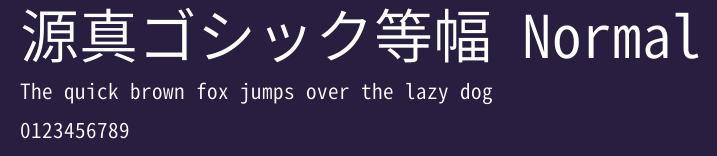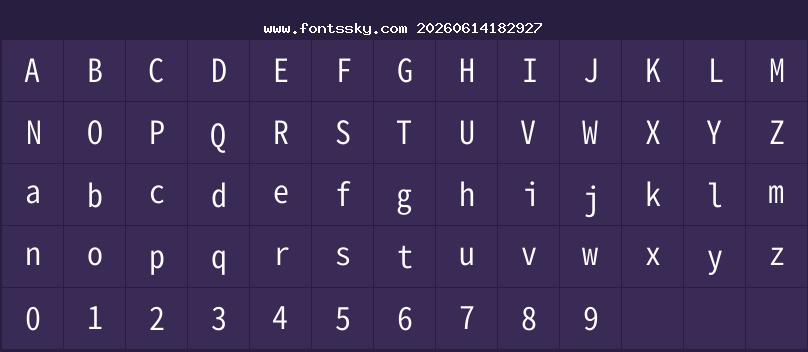
• Designer: [Source Han Sans] Ryoko NISHIZUKA 西塚涼子 (kana & ideographs); Paul D. Hunt (Latin, Greek & Cyrillic); Wenlong ZHANG 张文龙 (bopomofo); Sandoll Communication 산돌커뮤니케이션, Soo-young JANG 장수영 & Joo-yeon KANG 강주연 (hangul elements, letters & syllables) [M+ OUTLINE FONTS] Coji Morishita 森下浩司 (coz)
About 源真ゴシック等幅 Normal.ttf
源真ゴシック等幅 Normal.ttf is a modern, elegant sans-serif font designed for ultimate readability and visual harmony. Perfect for branding, headlines, web design, and print materials.